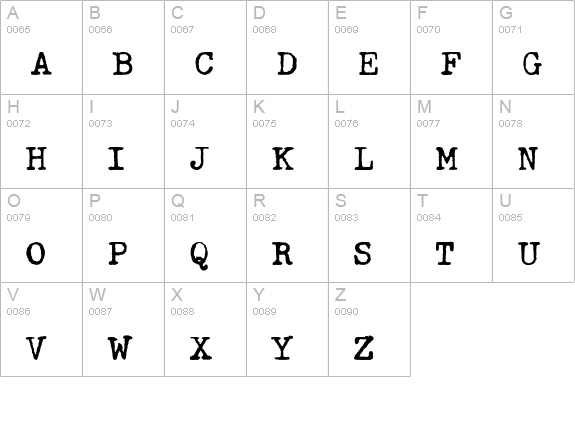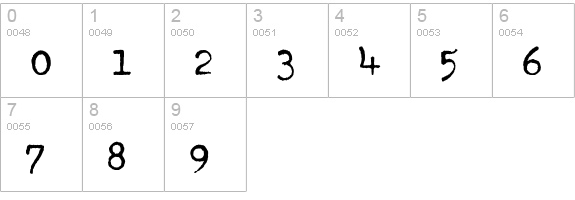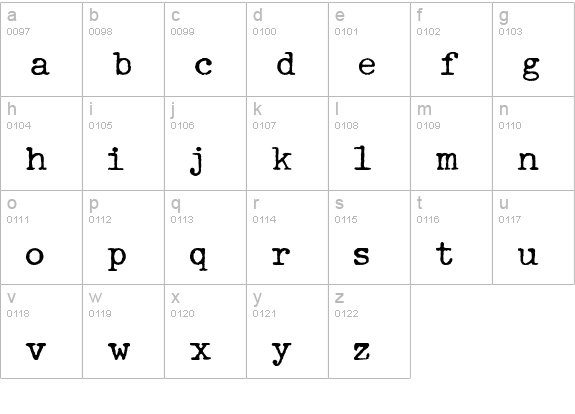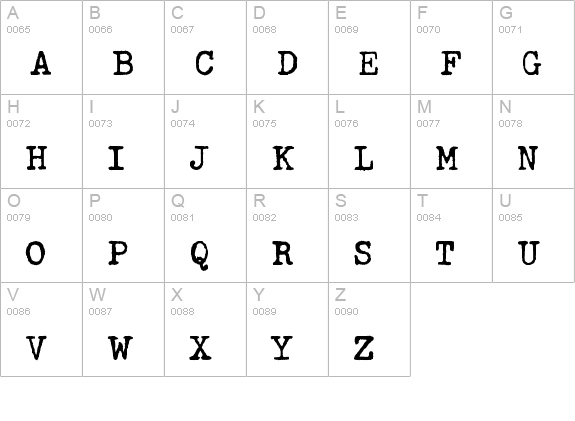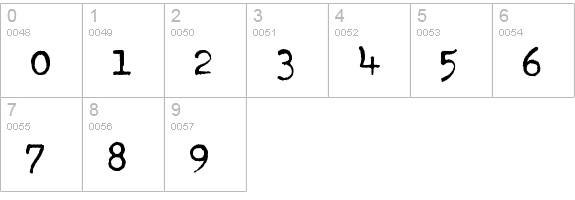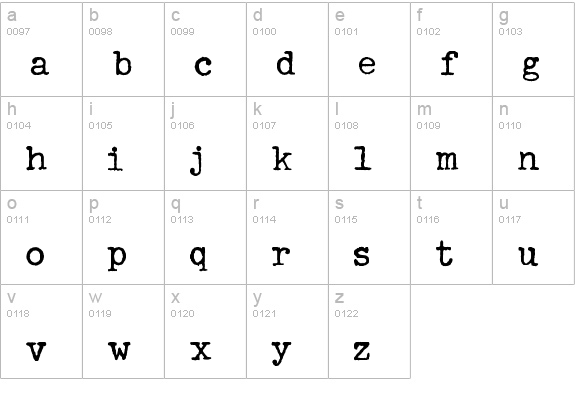
DumbOldTypewriter Normal is the standard, neutral variant in the DumbOldTypewriter typeface family \xE2\x80\x94 well suited to general body text, paragraphs, and standard typographic work.
DumbOldTypewriter Normal font exudes a classic charm with its vintage typewriter-inspired design. Its clean and simple appearance makes it perfect for various projects, from retro-themed posters to stylish branding. This versatile font is ideal for adding a touch of nostalgia to your designs, while maintaining a professional and polished look. Best of all, DumbOldTypewriter Normal font is available for free download at FontsMarket.com. Whether you're working on personal or commercial projects, this font is a valuable addition to your collection. Download it today and let your creativity flow with this timeless and elegant typeface.